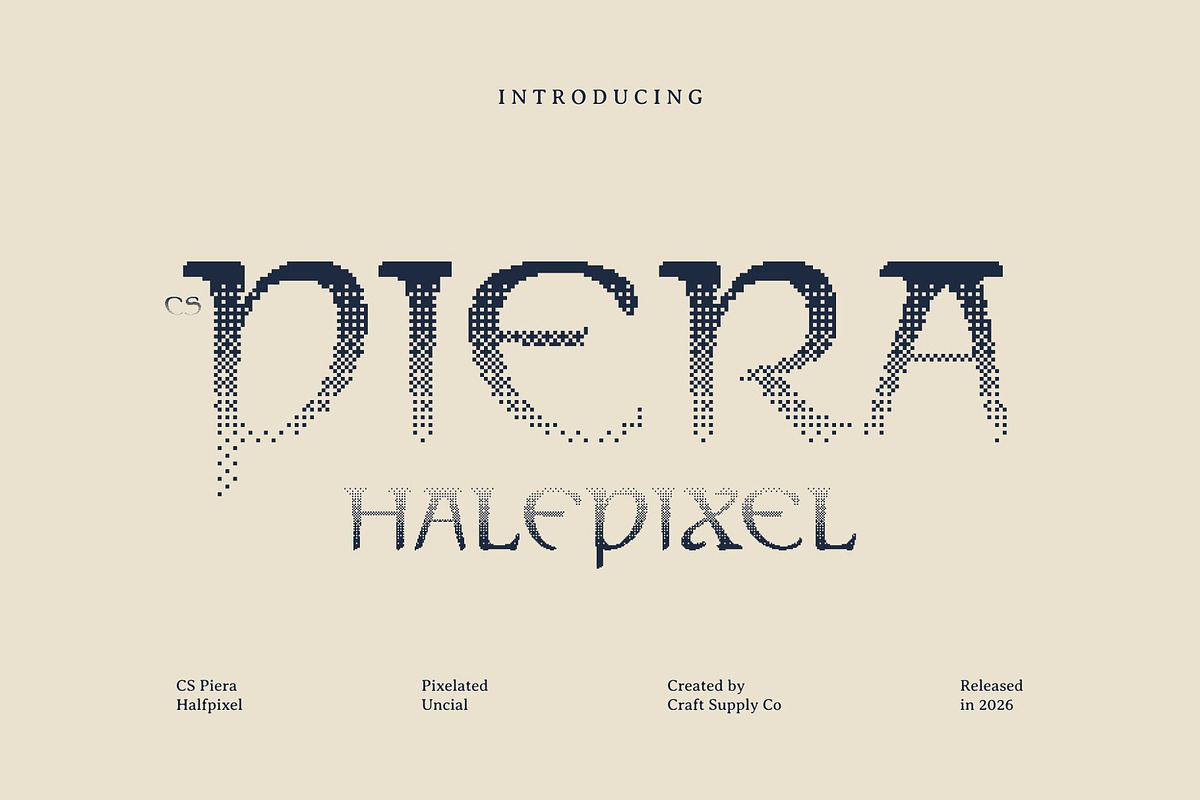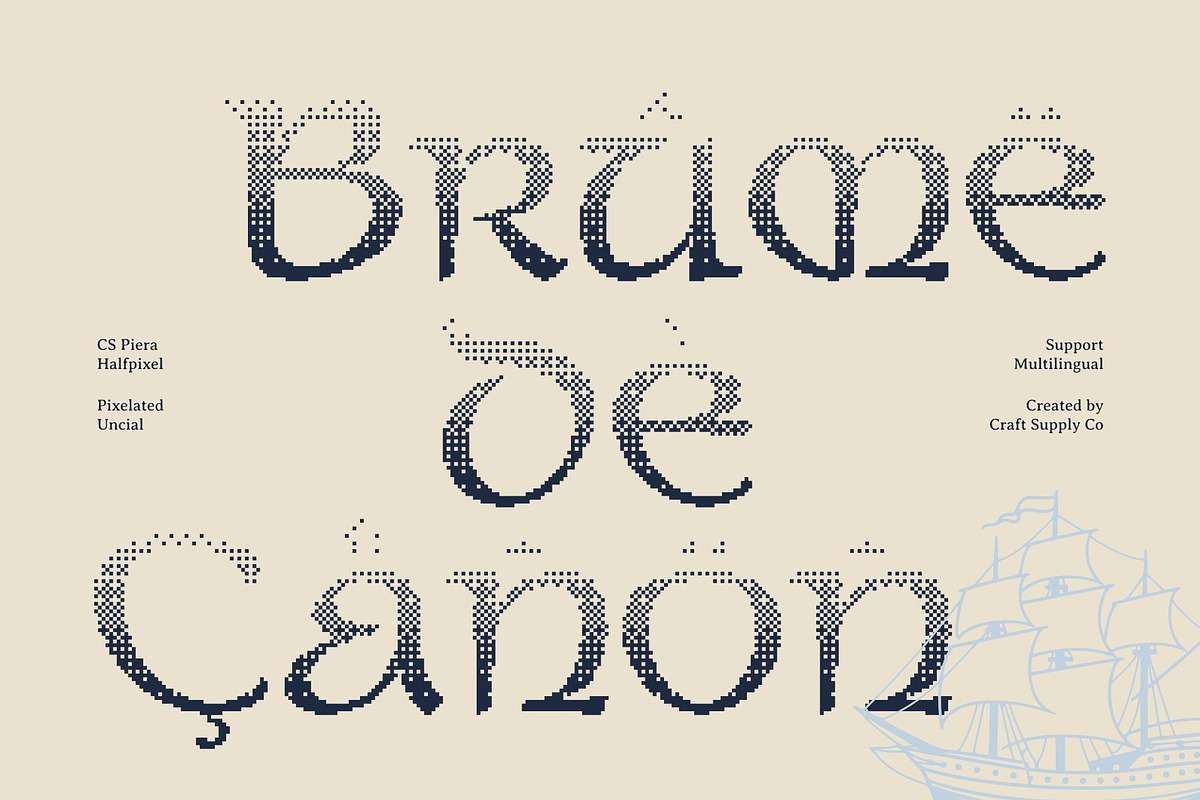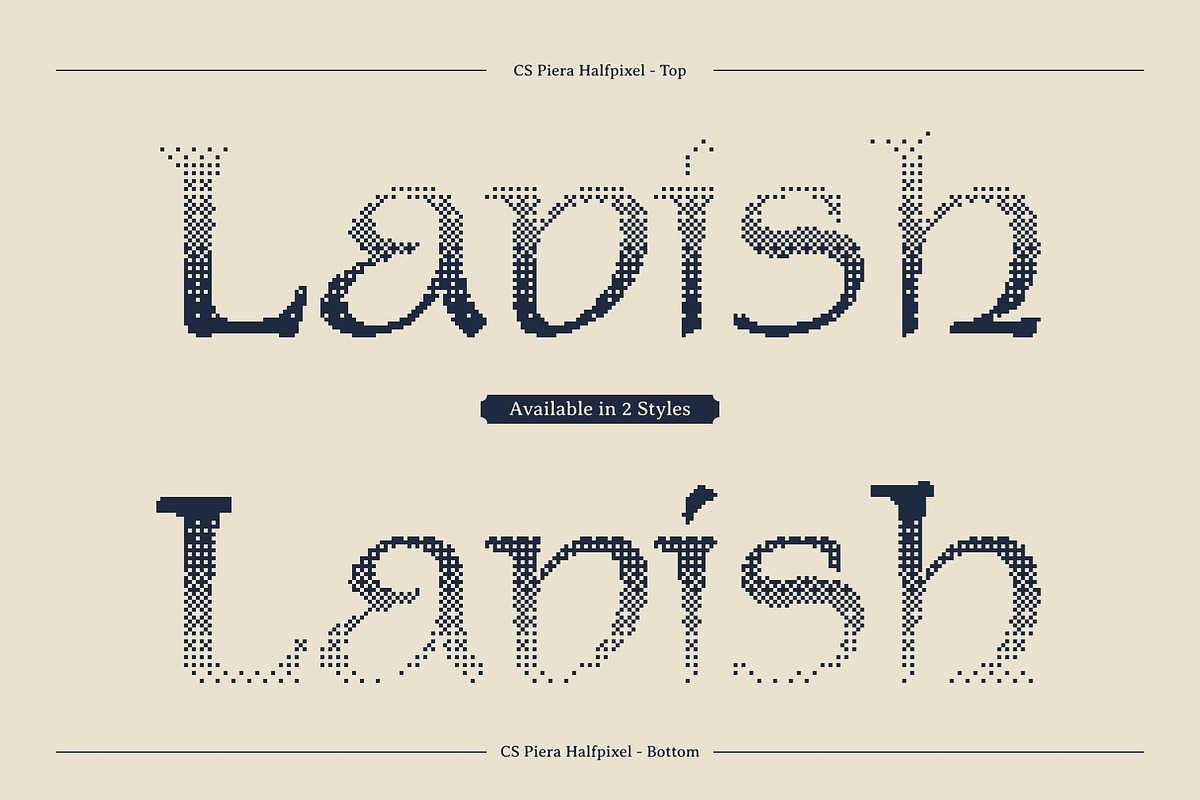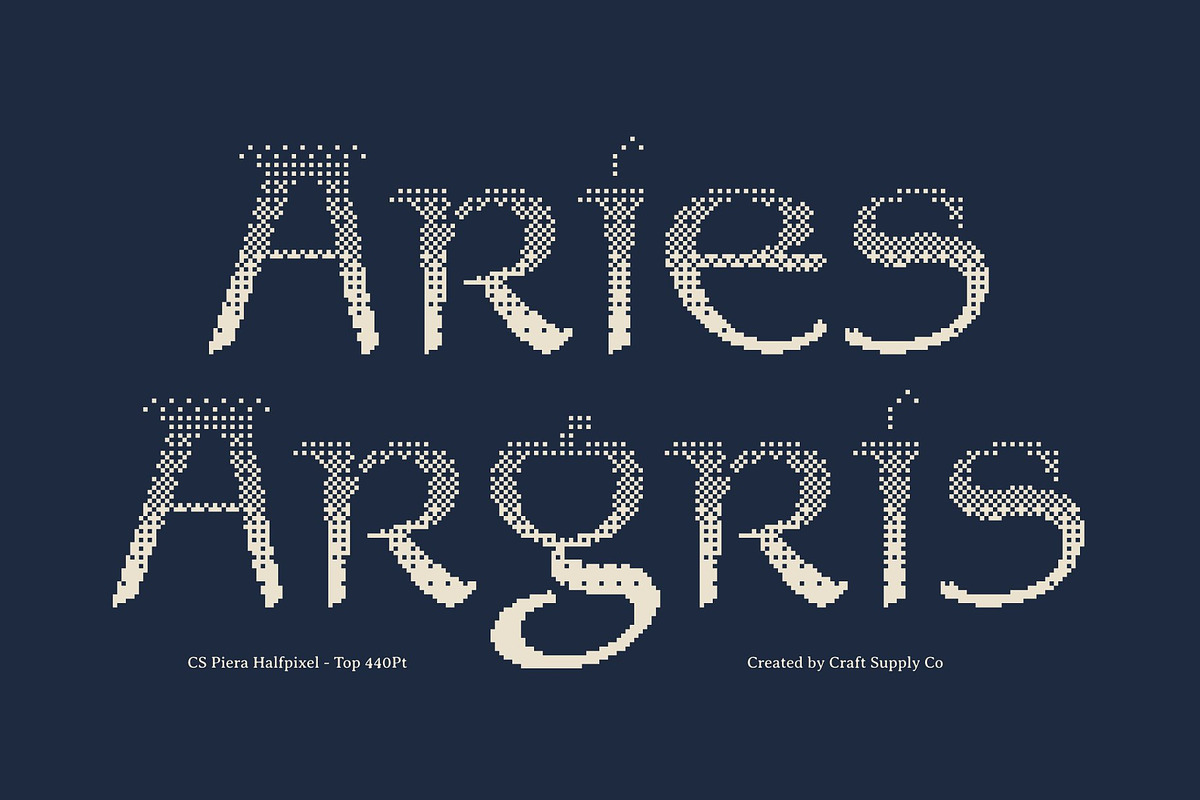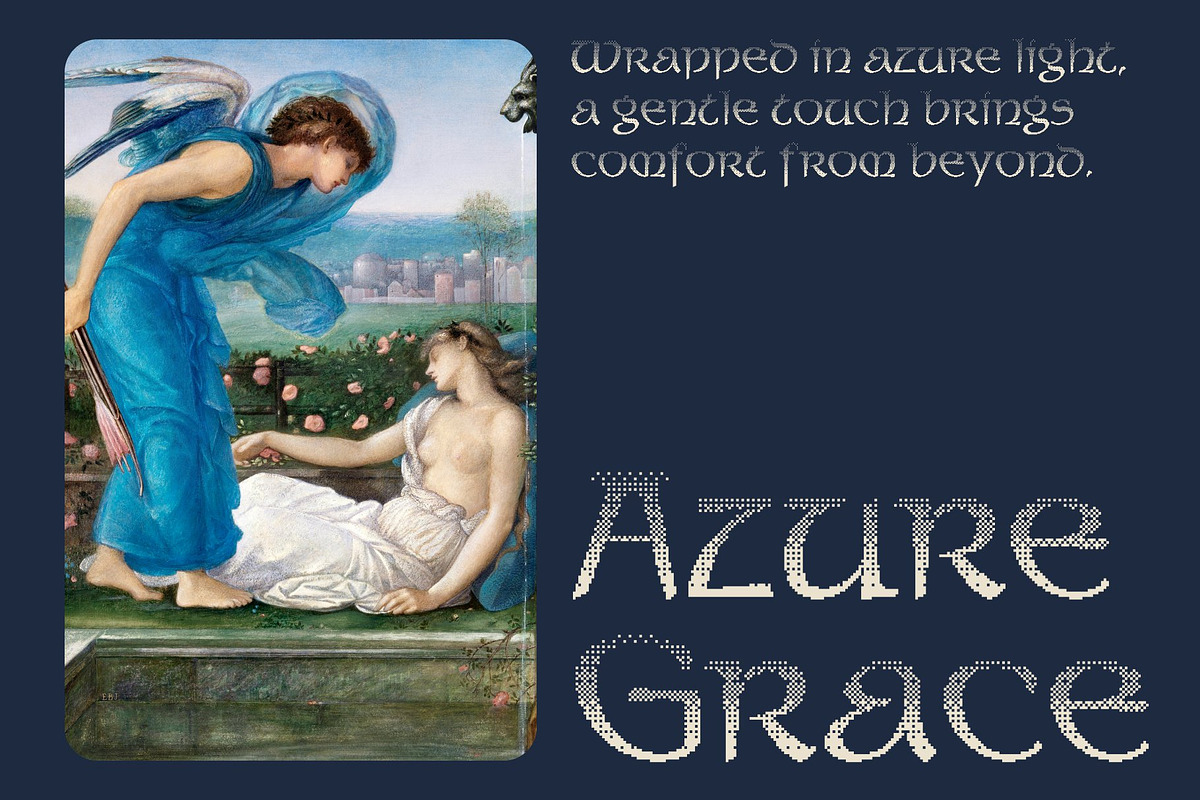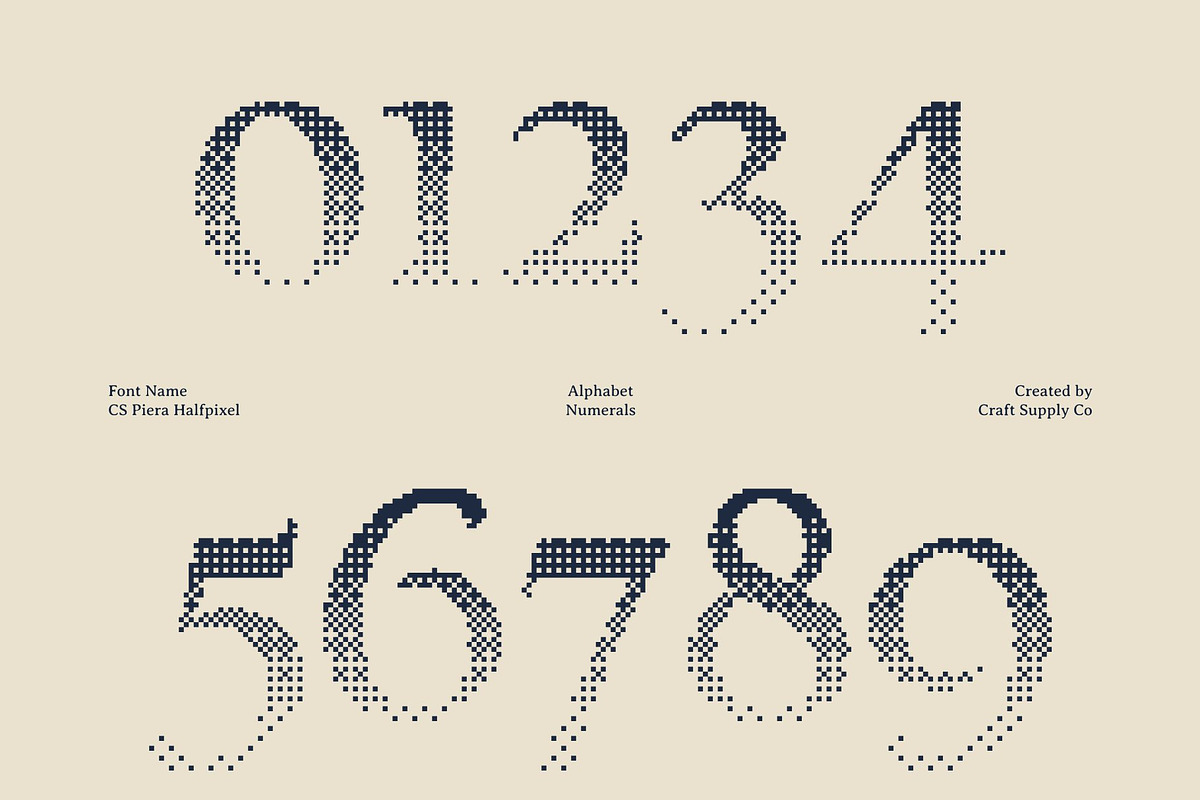
CS Piera Halfpixel
CS Piera Halfpixel – Uncial Display Font: Where Medieval Elegance Meets Smooth Pixel Precision
Classic Uncial Forms with Historical Beauty This is a display font inspired by classic uncial lettering, featuring round and flowing letterforms rooted in medieval handwriting traditions. Its graceful curves and distinctive proportions create a timeless visual identity filled with elegance, heritage, and artistic sophistication. Every character feels authentic and expressive, making the font perfect for projects that seek a connection to history and tradition.
Halfpixel Effect with Smooth Digital Refinement This font offers a smoother feel than traditional pixel fonts. Using anti-aliasing-inspired detailing, the letterforms feature subtly softened edges that create a polished digital appearance while preserving the charm of pixel-based construction. The result is a unique blend of ancient calligraphic influence and modern digital refinement.
Historical Inspiration with Contemporary Appeal This font delivers a typographic identity that feels timeless, artistic, and visually engaging. Its rounded manuscript forms combined with softened pixel details evoke illuminated texts, historical craftsmanship, fantasy aesthetics, and contemporary creative design, creating a look that is both classic and distinctive.
Perfect for Heritage, Fantasy, and Formal Designs This is perfect for royal branding, medieval-themed events, formal invitations, book covers, cultural exhibitions, fantasy projects, packaging, and heritage-inspired visual identities. Its refined halfpixel forms make it ideal for logos, headlines, certificates, posters, and creative projects that seek to evoke the beauty of the past while maintaining a modern edge.